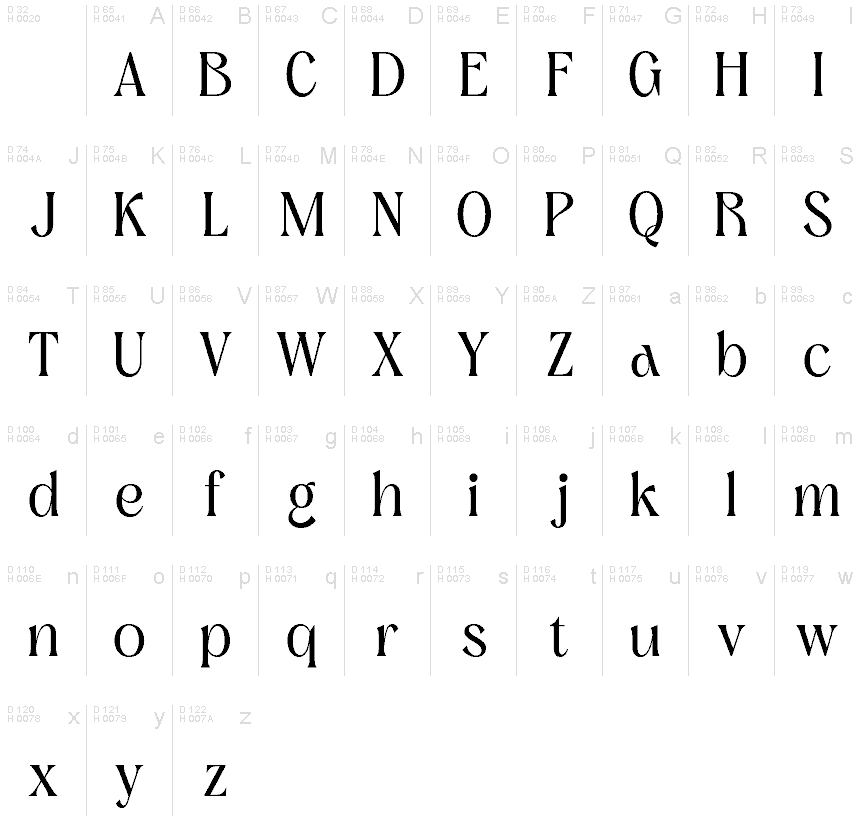
CS Facile Regular Demo
CS Facile font by Craft Supply Co. is a free serif font with classic, timeless elegance enclosed in its every curve. It’s delicate on the eye with a sophisticated appearance formed by slightly ornate details, while the overall appearance is an improved version of conventional serif letters. Traditional with a modern twist turns this typeface into an exquisite tool for interesting designs.
Rich in elegance and style, this font will be exceptional if used in book covers, social media posts, wedding invites, business cards, or branding projects. Use it for posters and flyers or to elegantly communicate your message via artist signatures or body copy in artistic magazines and newspapers.